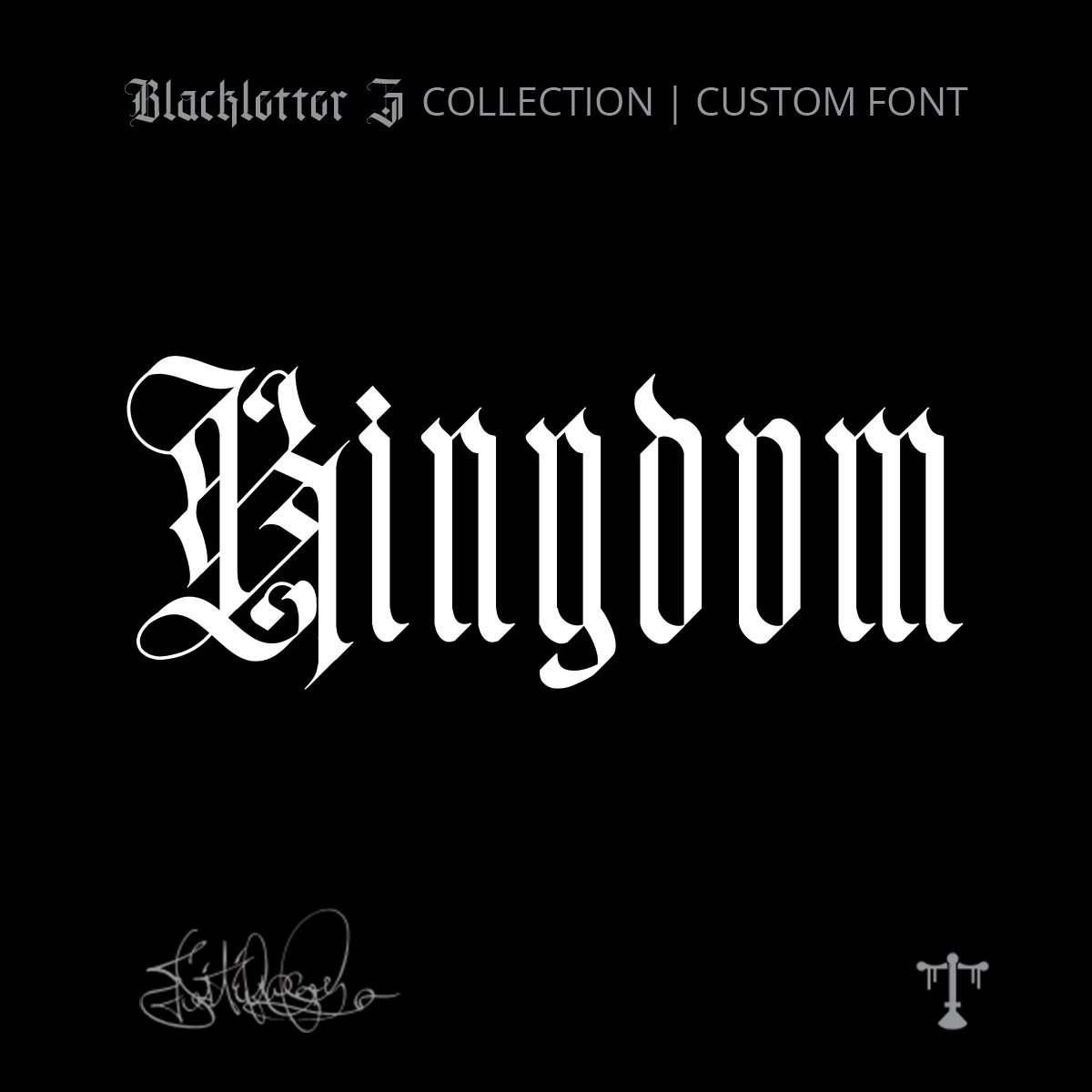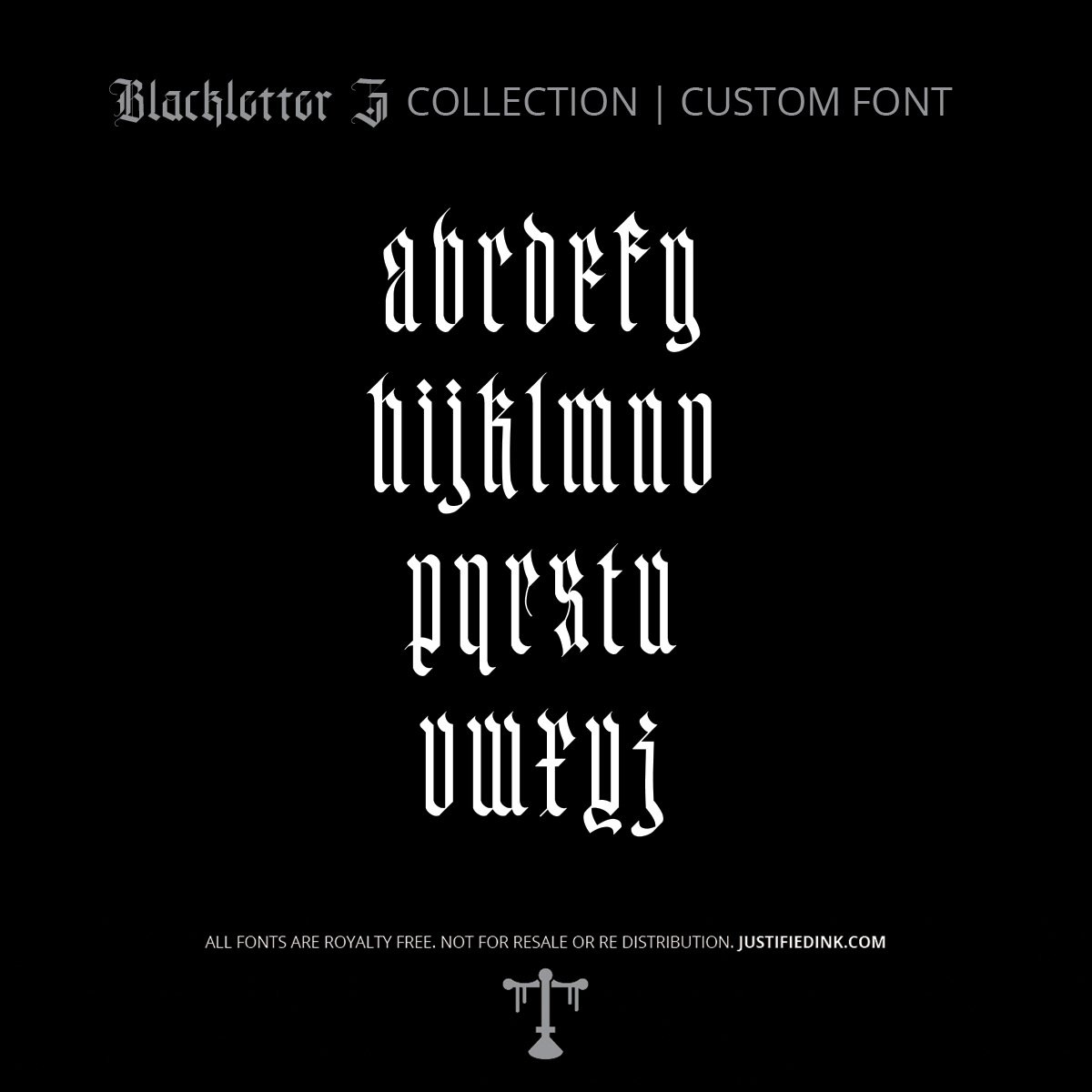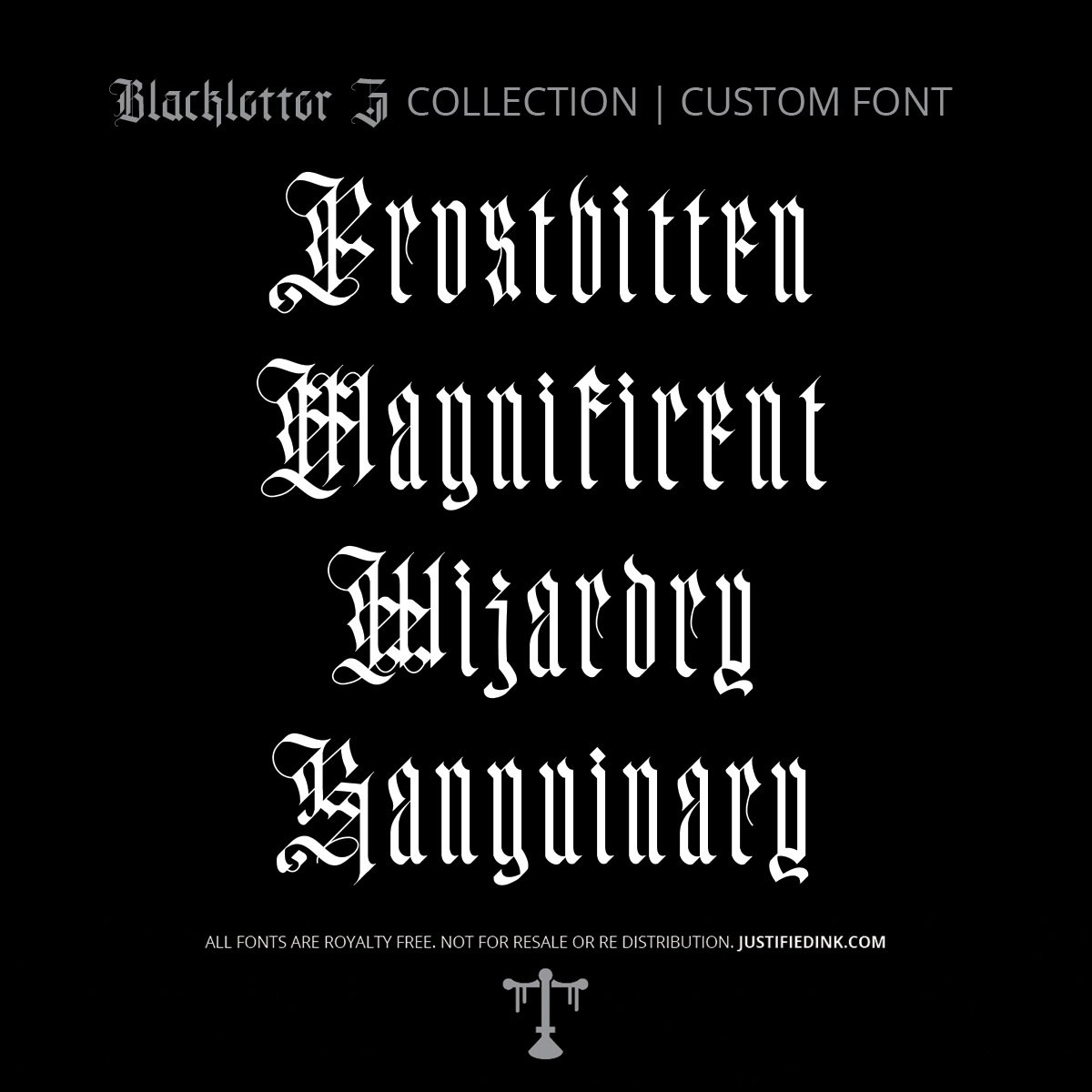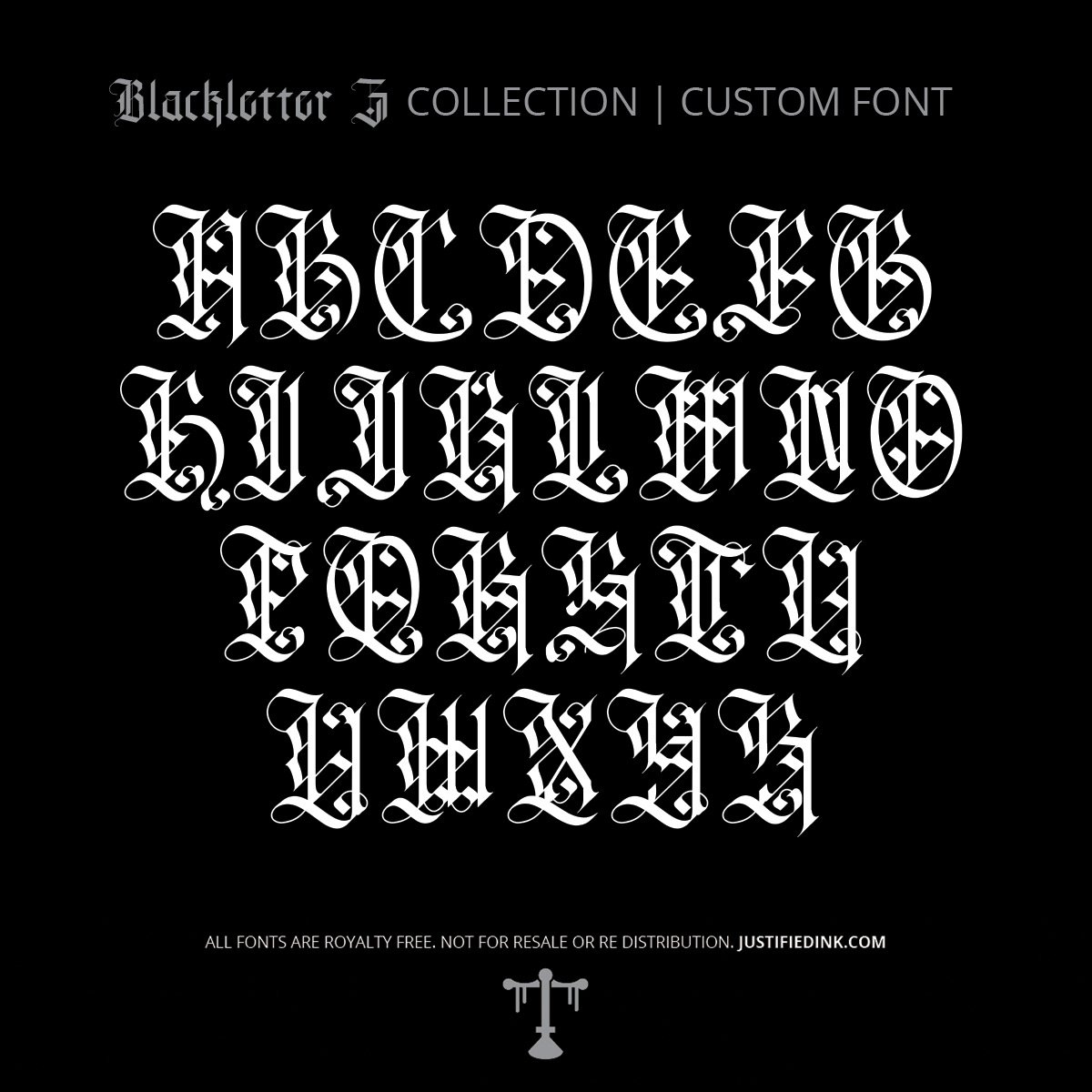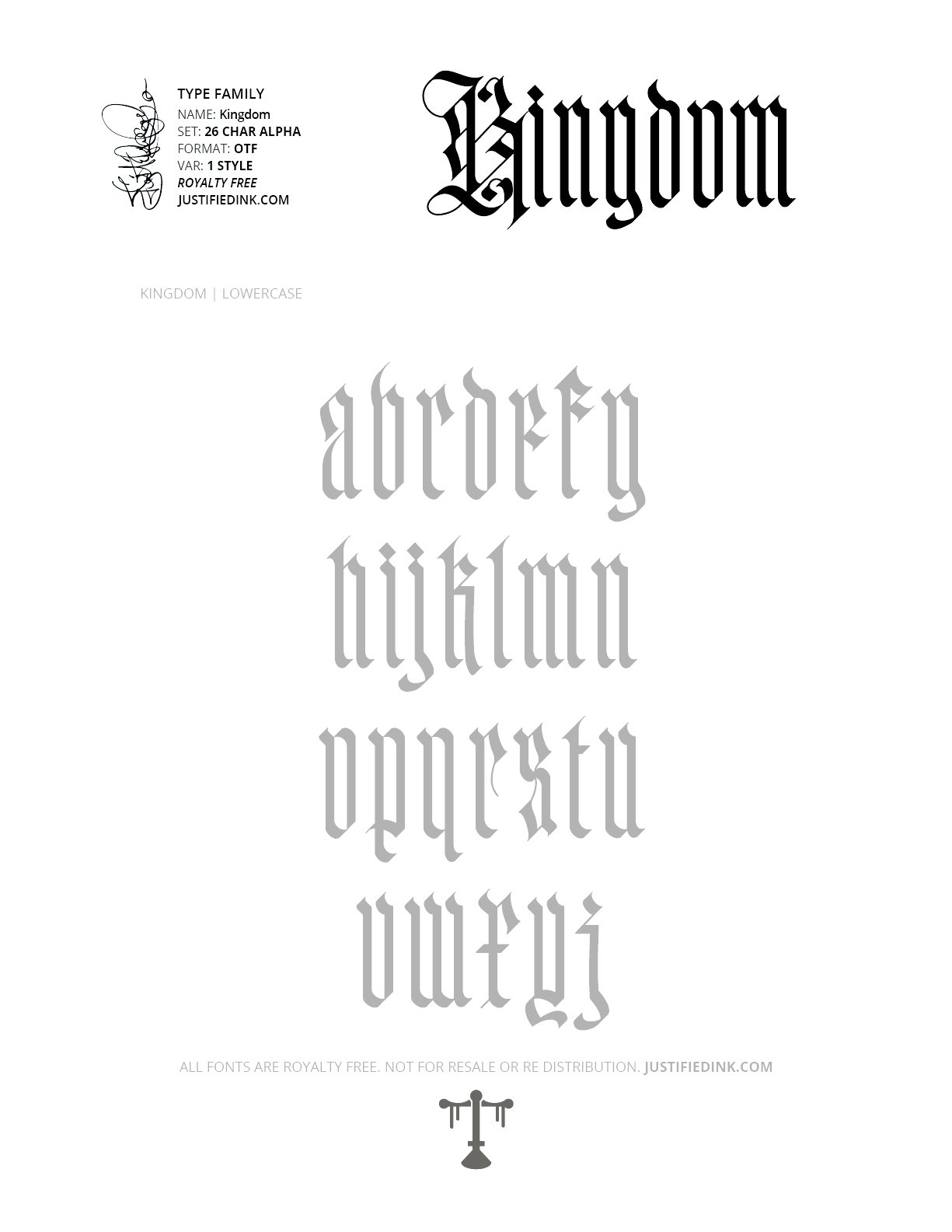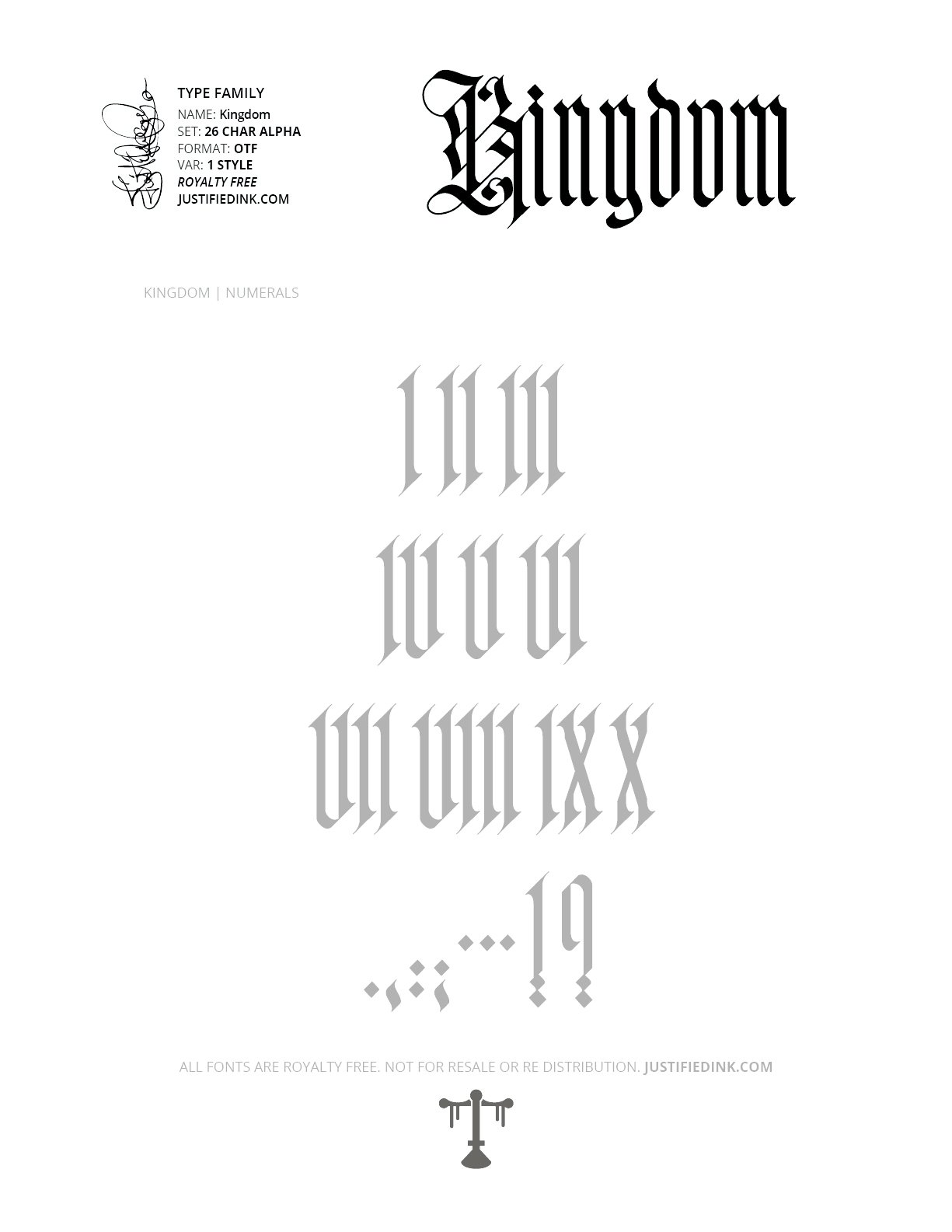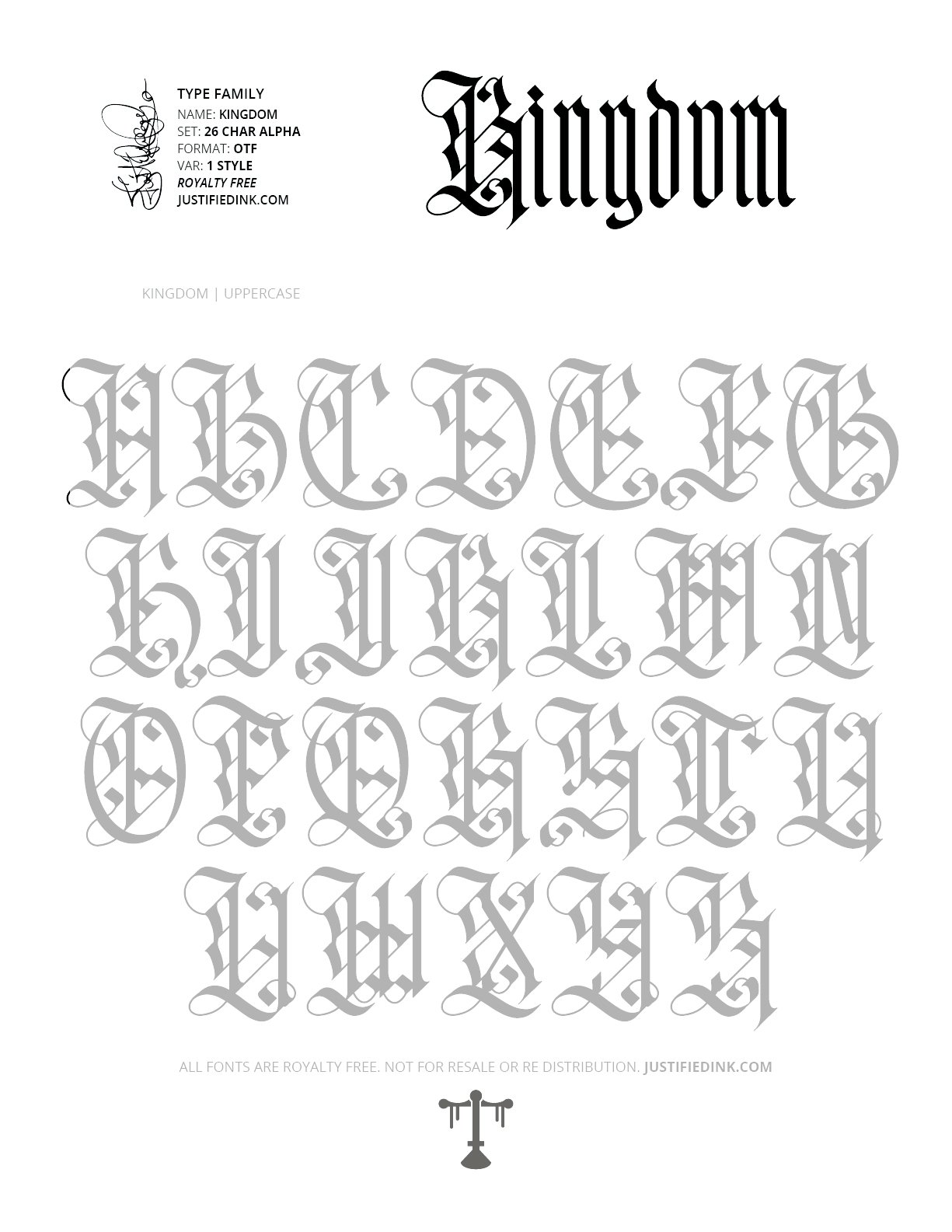
Kingdom (1 style) - Custom Font
Crowned in Flourish. Forged for Royal Decrees.
Kingdom is a tall, elegant blackletter font that commands attention through height, balance, and lavish ornamentation. Sharp gothic forms rise into sweeping flourishes, creating letterforms that feel equally at home carved into castle gates, illuminated manuscripts, or royal proclamations. Every stroke carries the presence of nobility without sacrificing readability.
Inspired by medieval kingdoms, knightly orders, and the grandeur of Gothic architecture, Kingdom blends disciplined structure with decorative expression. Its generous flourishes add movement and prestige while the narrow proportions allow words to stand proudly with an unmistakable vertical rhythm. Whether you're designing heraldry, luxury branding, fantasy artwork, tattoos, or ceremonial typography, Kingdom delivers a regal voice worthy of its name.